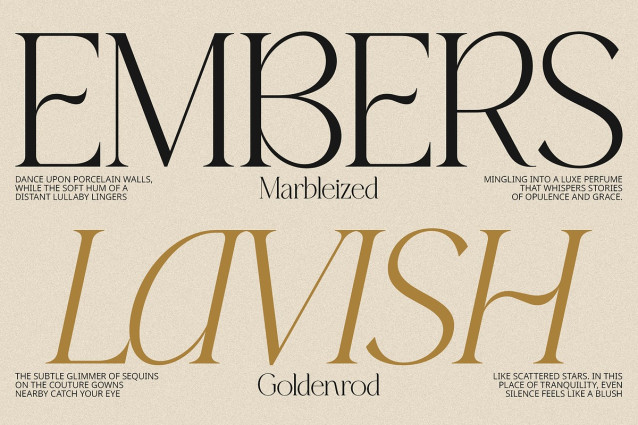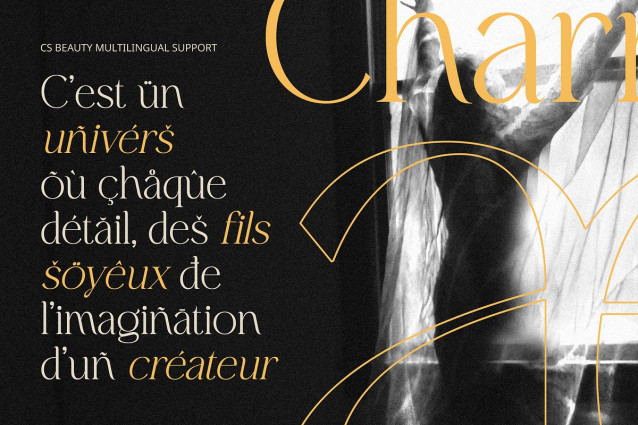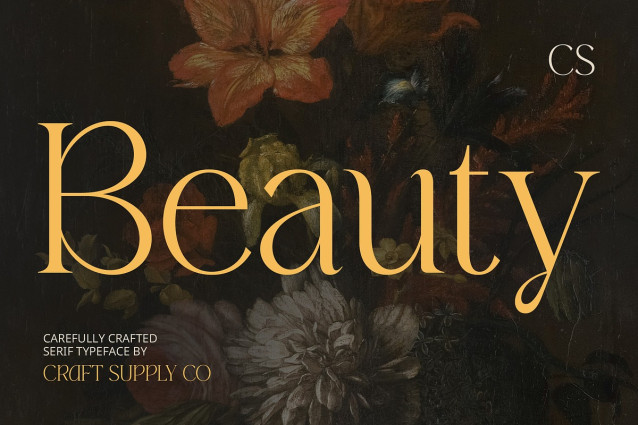
CS Beauty Font
CS Beauty Font is a modern serif font designed with a sleek, clean structure and refined elegance. It embraces a contemporary minimalist style while retaining the delicate character of classic typography, resulting in a timeless yet fashionable appearance.
Graceful Lines and Subtle Serifs With its thin strokes and gentle serif accents, CS Beauty exudes poise and sophistication. The carefully sculpted details offer just the right amount of ornamentation, adding charm without clutter—ideal for clean, modern layouts with a hint of luxury.
A Beautiful Yet Professional Impression CS Beauty strikes a perfect balance between beauty and professionalism. Its understated style and graceful proportions make it well-suited for projects that require a polished and captivating presence, such as fashion editorials, luxury branding, and elegant packaging.
Designed for High-End Visual Identity Whether featured in logos, headlines, invitations, or website headers, CS Beauty delivers a high-end aesthetic that feels both contemporary and graceful. Its refined structure enhances any design with a sense of confidence, clarity, and visual harmony.
Versatile Across Modern Creative Projects From minimalist branding to upscale print design, CS Beauty adapts easily to various creative needs. Its modern serif form makes it a reliable choice for designers seeking to elevate their typography with style, elegance, and subtle sophistication.